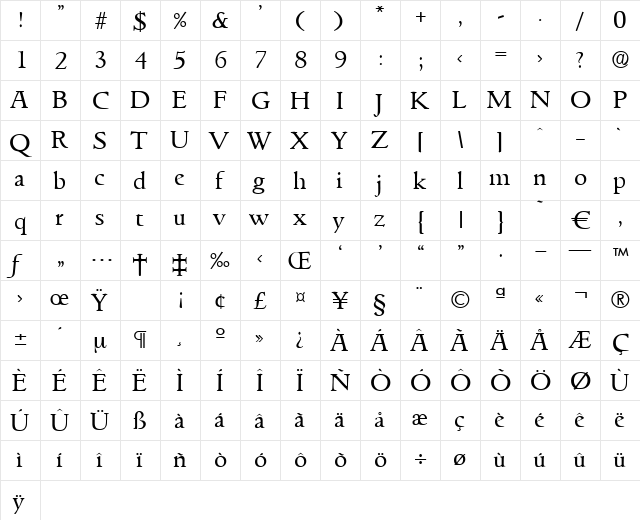
Goudita-Regular Regular
Design Context for Goudita-Regular Typeface
Goudita-Regular offers clean, dependable letterforms without strong stylistic allegiance, making it a practical choice for designers who need flexibility.